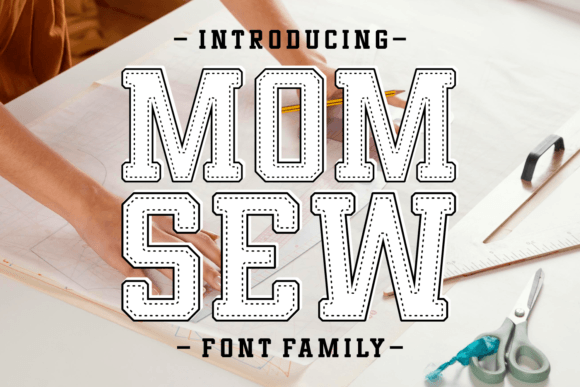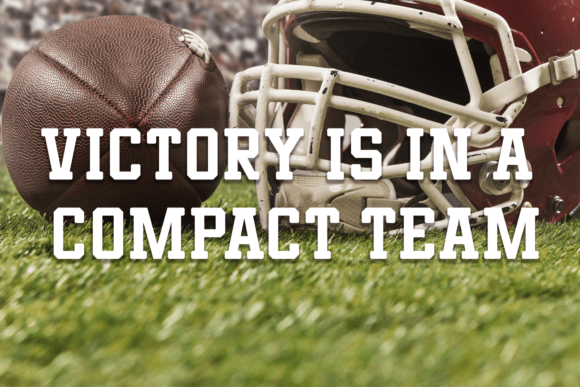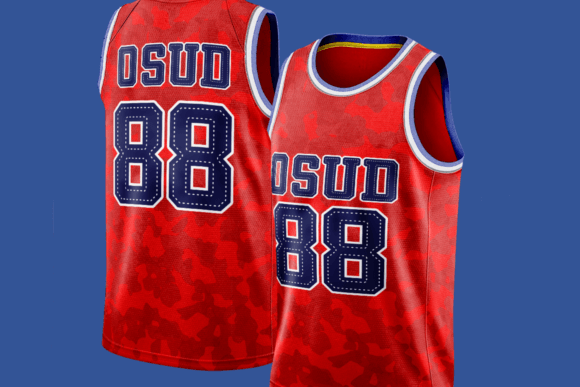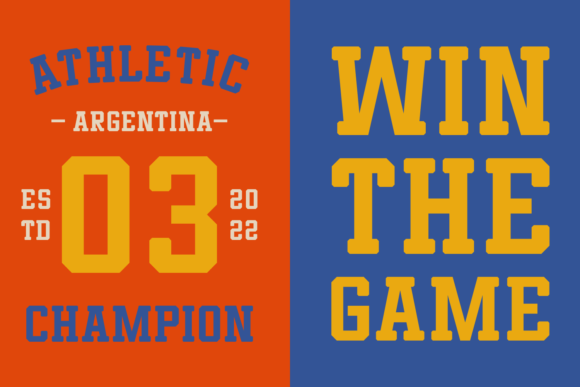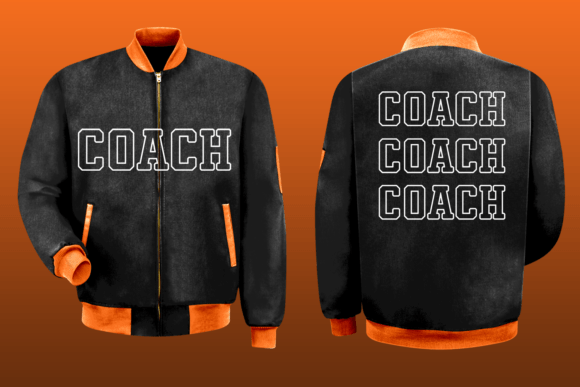
Mom Sew Font
About Mom Sew Font
Immerse yourself in this meticulously designed slab serif typeface. Resonating the charm of true authenticity, Mom Sew works flawlessly in many scenarios – be it branding, apparel, book covers, or web design. With its clean lines and aesthetically pleasing roundness, this font adds a touch of elegance to any project.